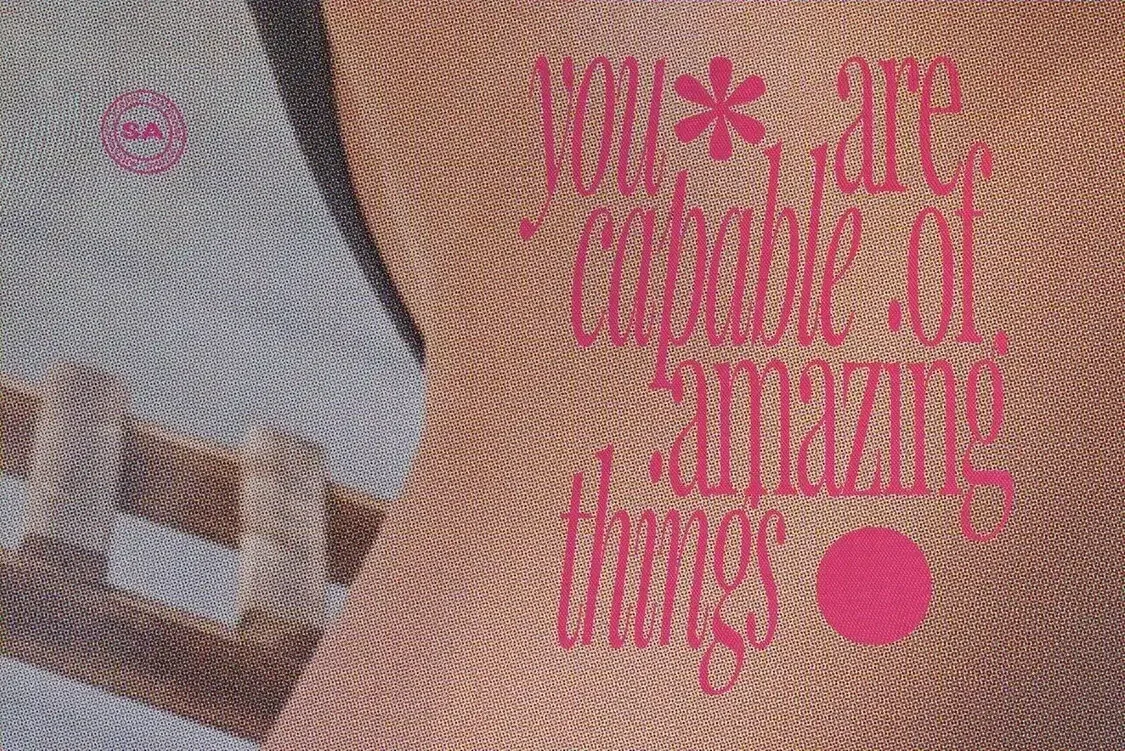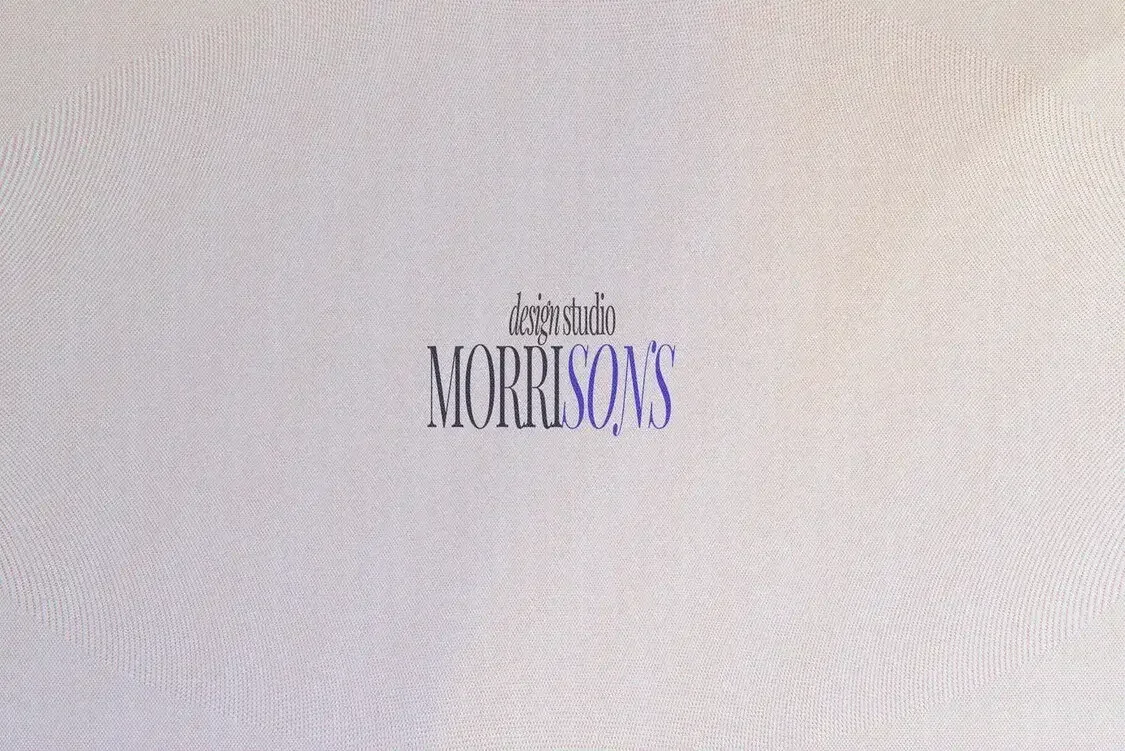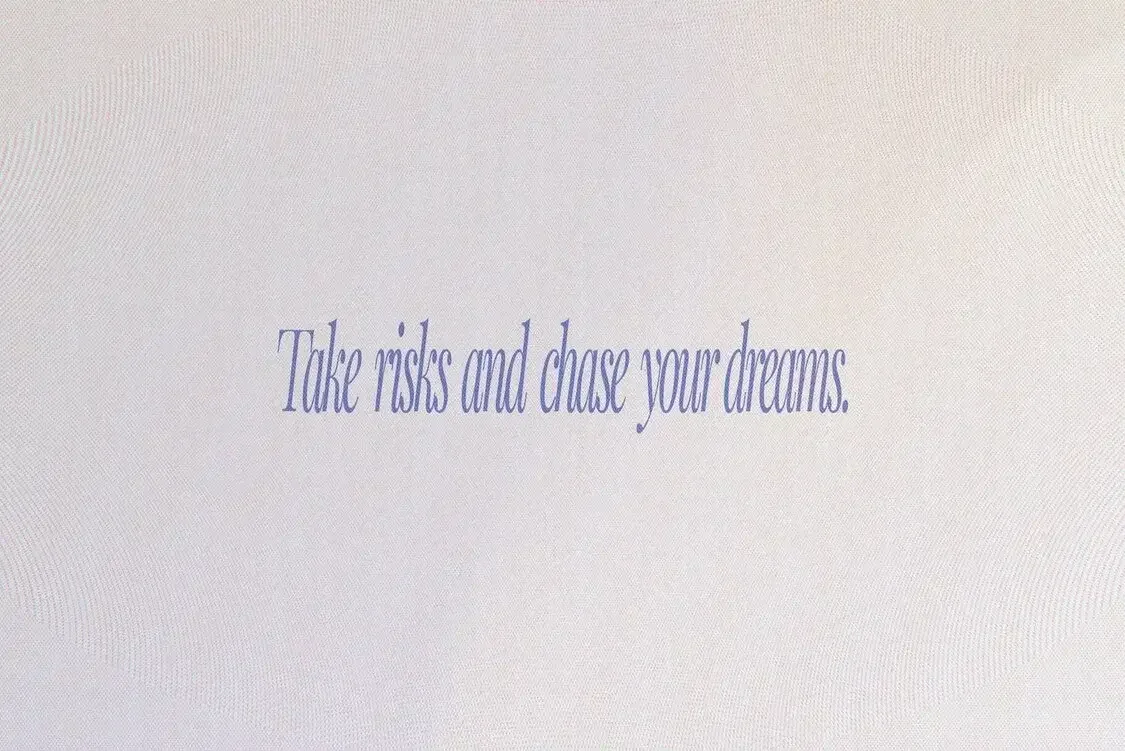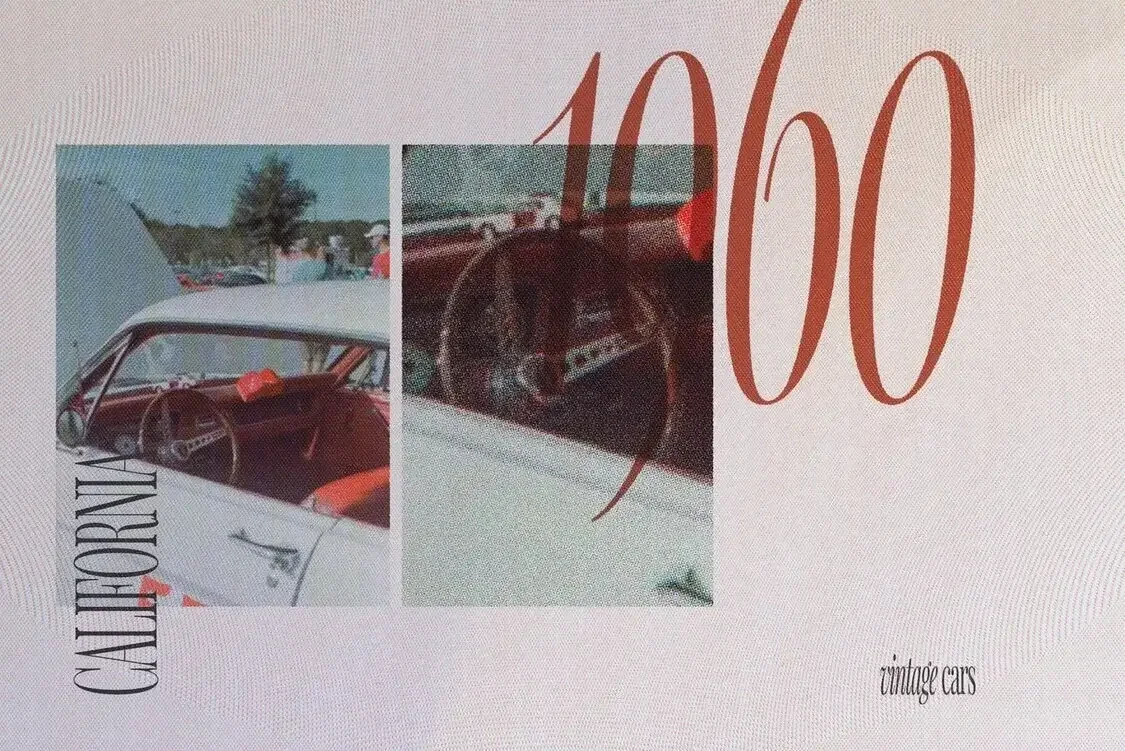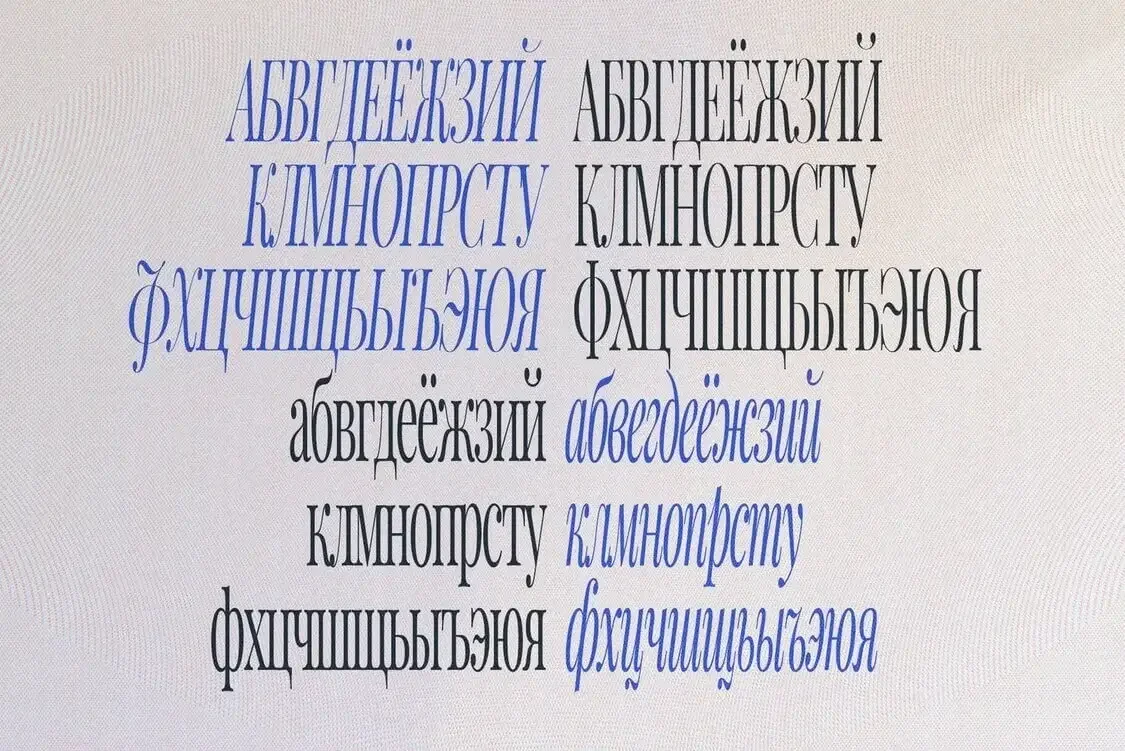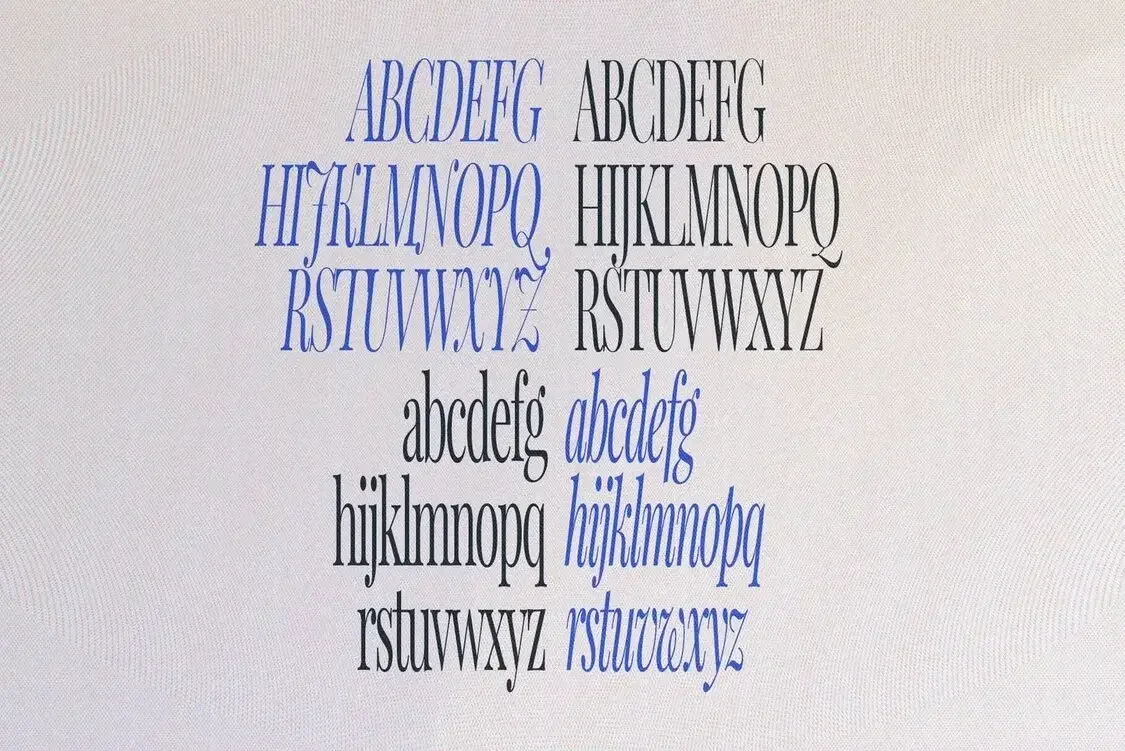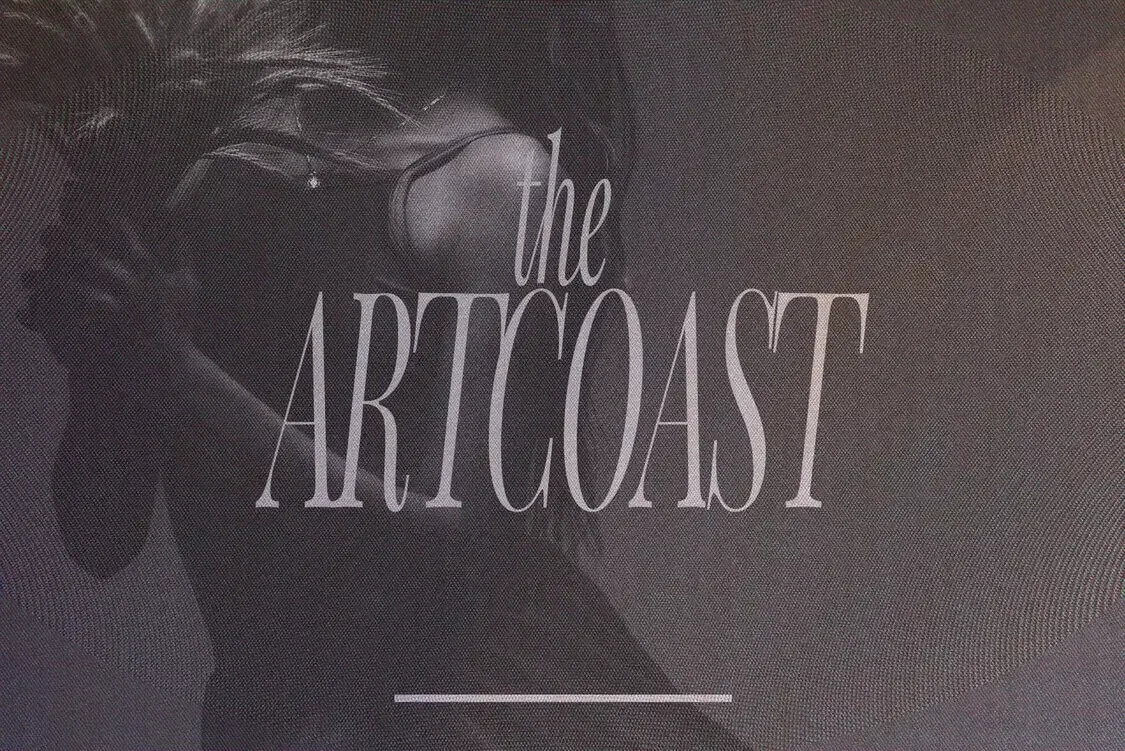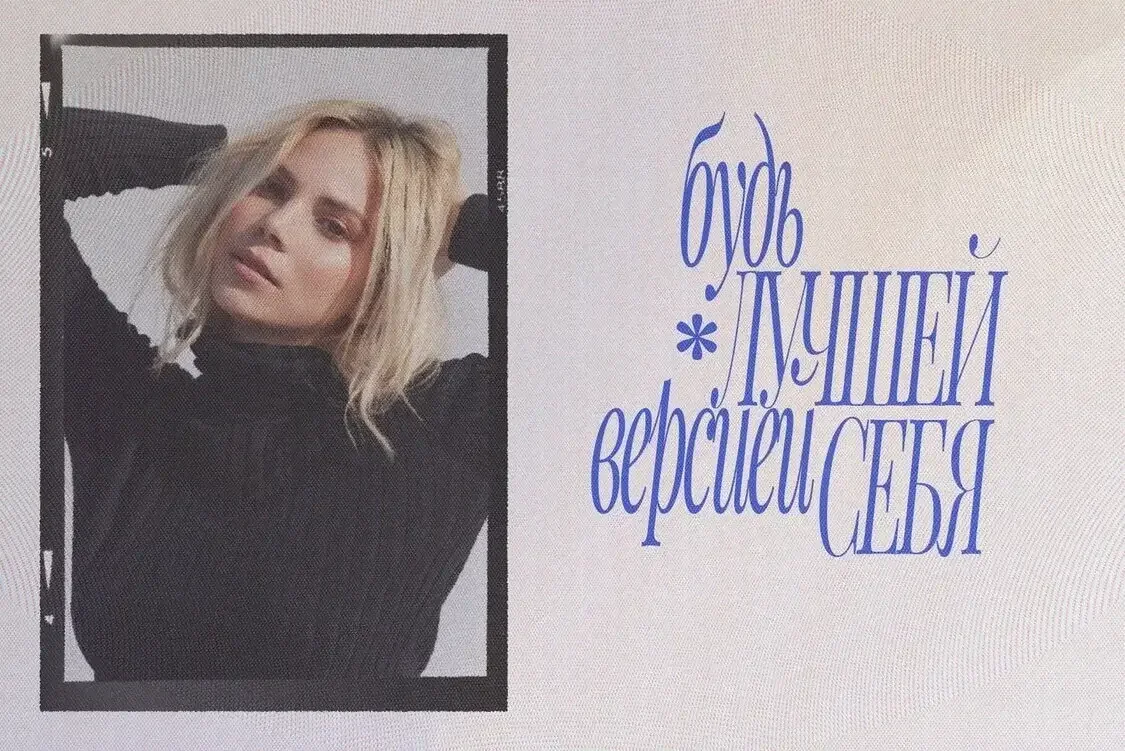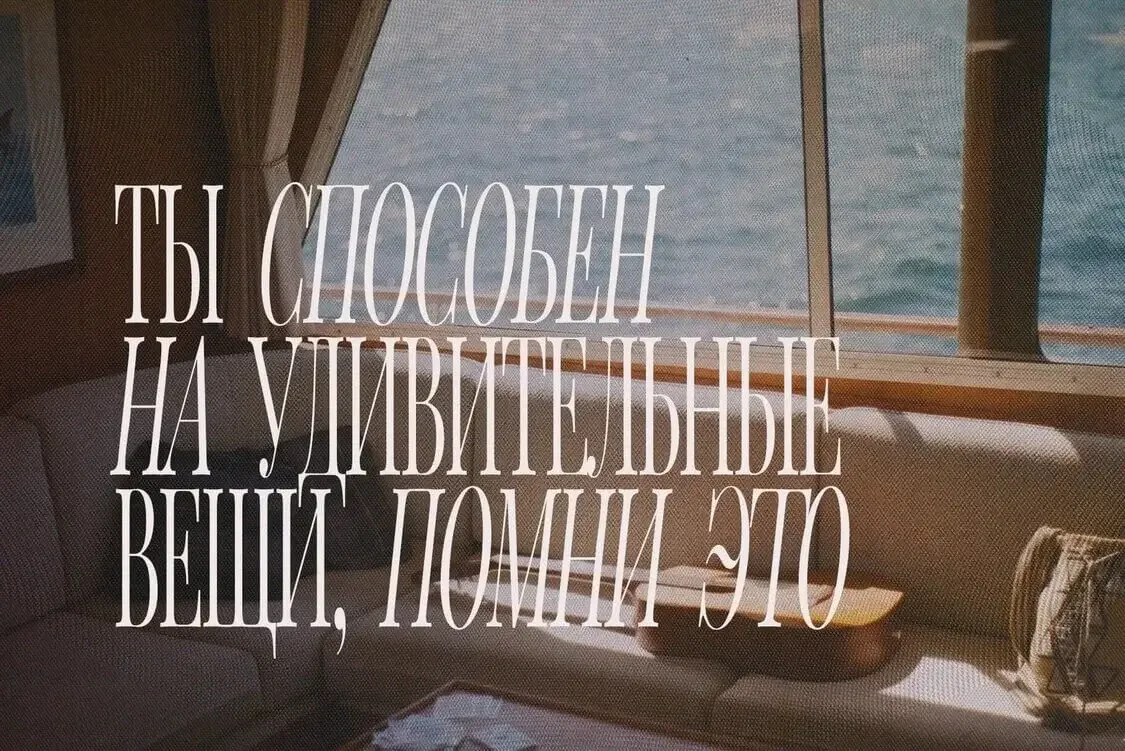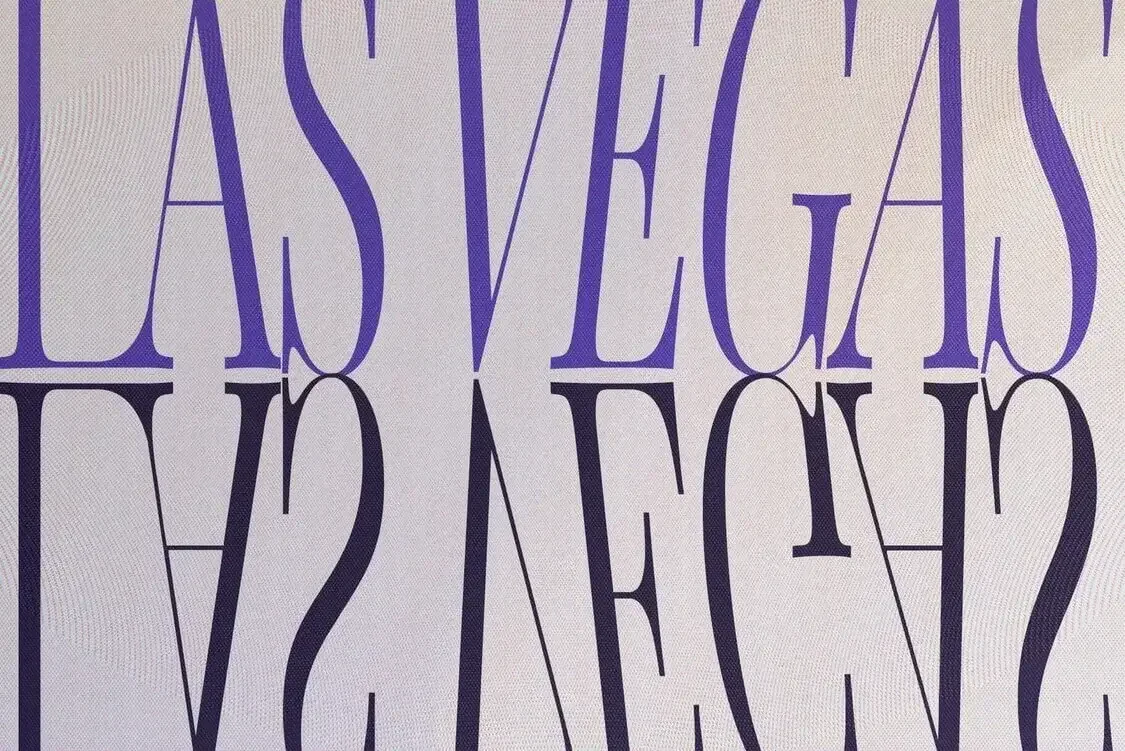
Yes. Unlike many boutique fonts, SA Magazine offers Cyrillic support (Russian). Every character has been meticulously crafted to maintain the same high-contrast, elegant aesthetic as the Latin set.